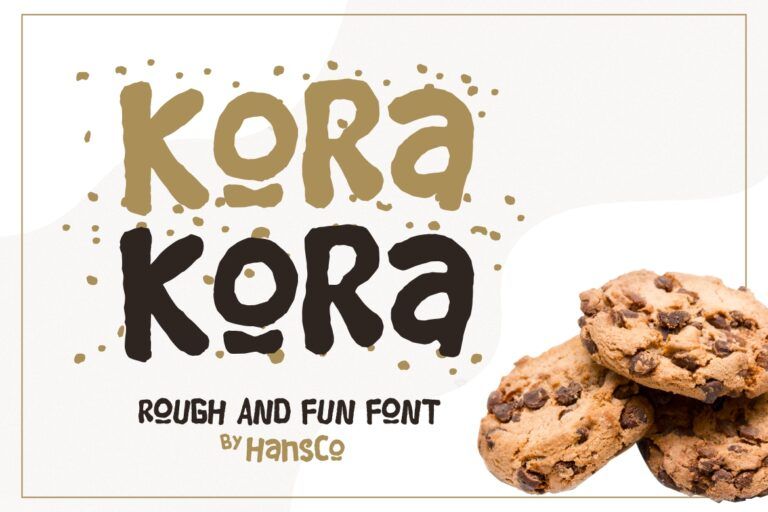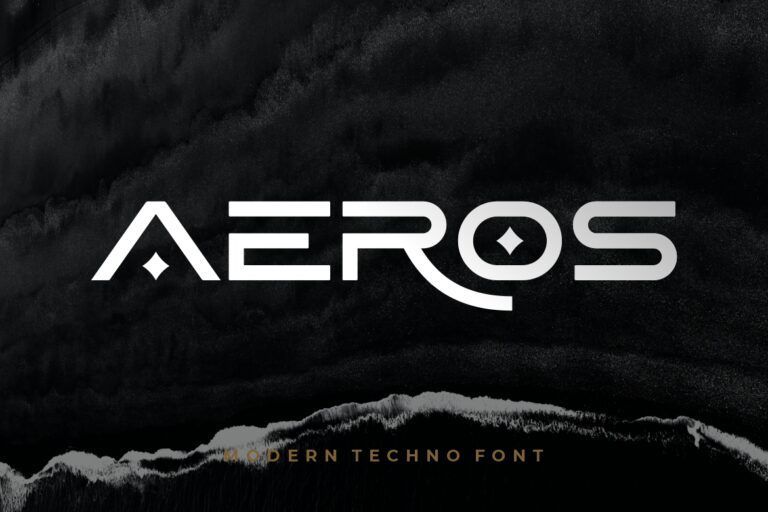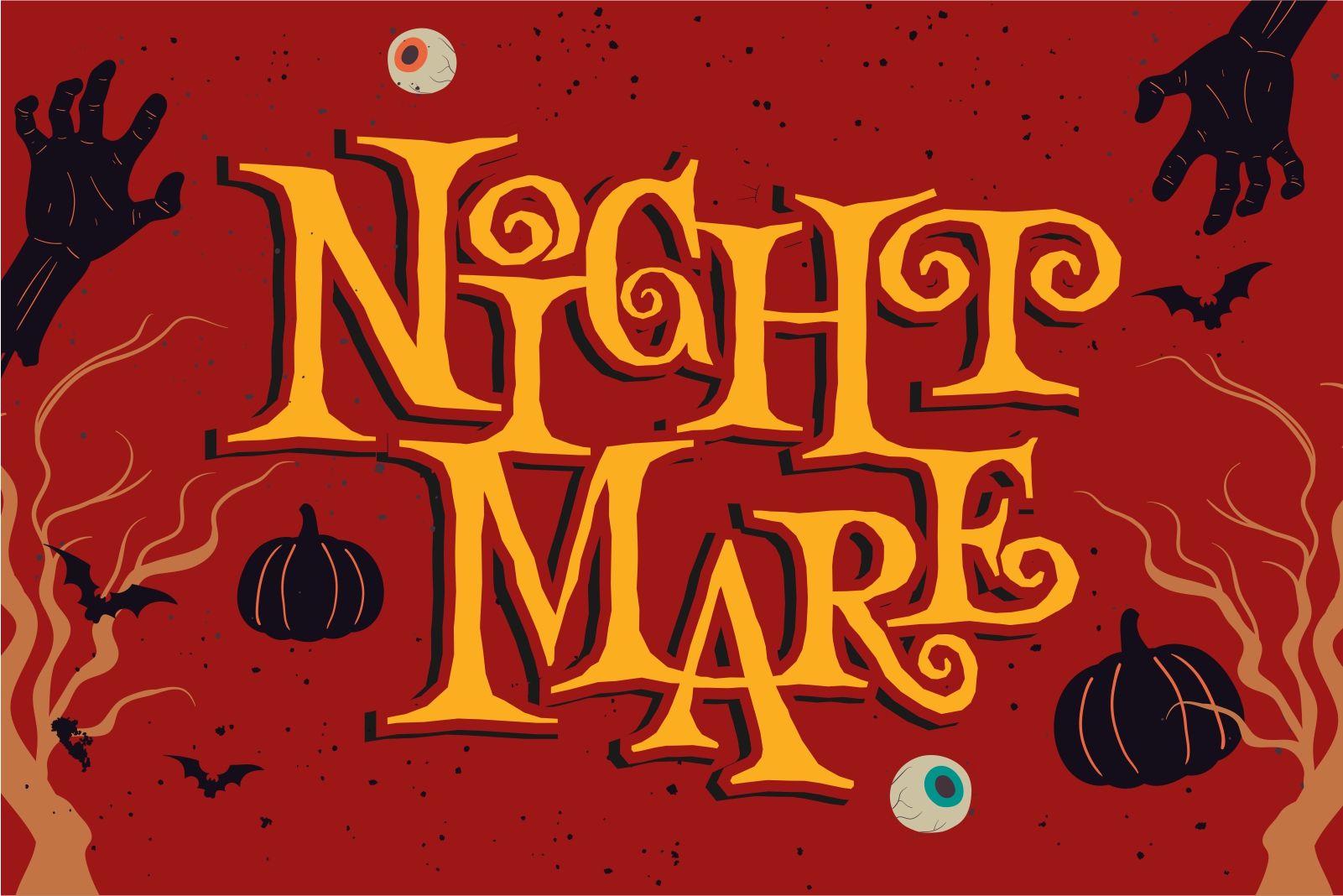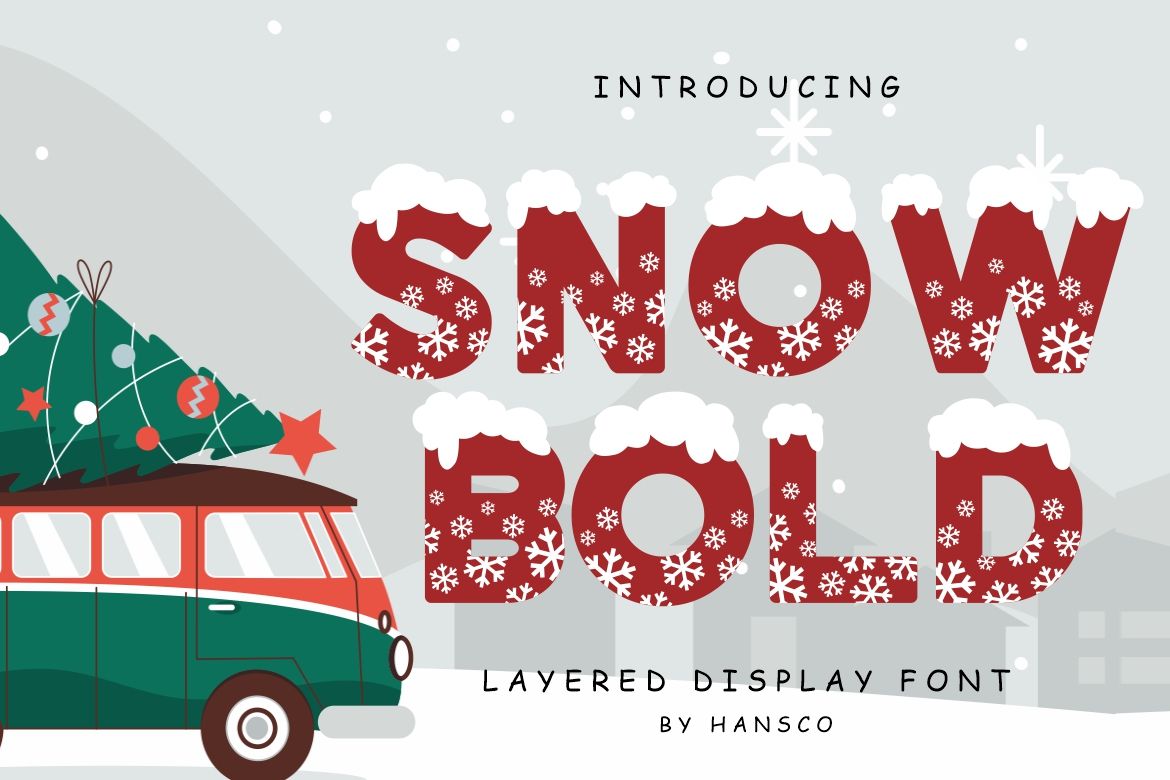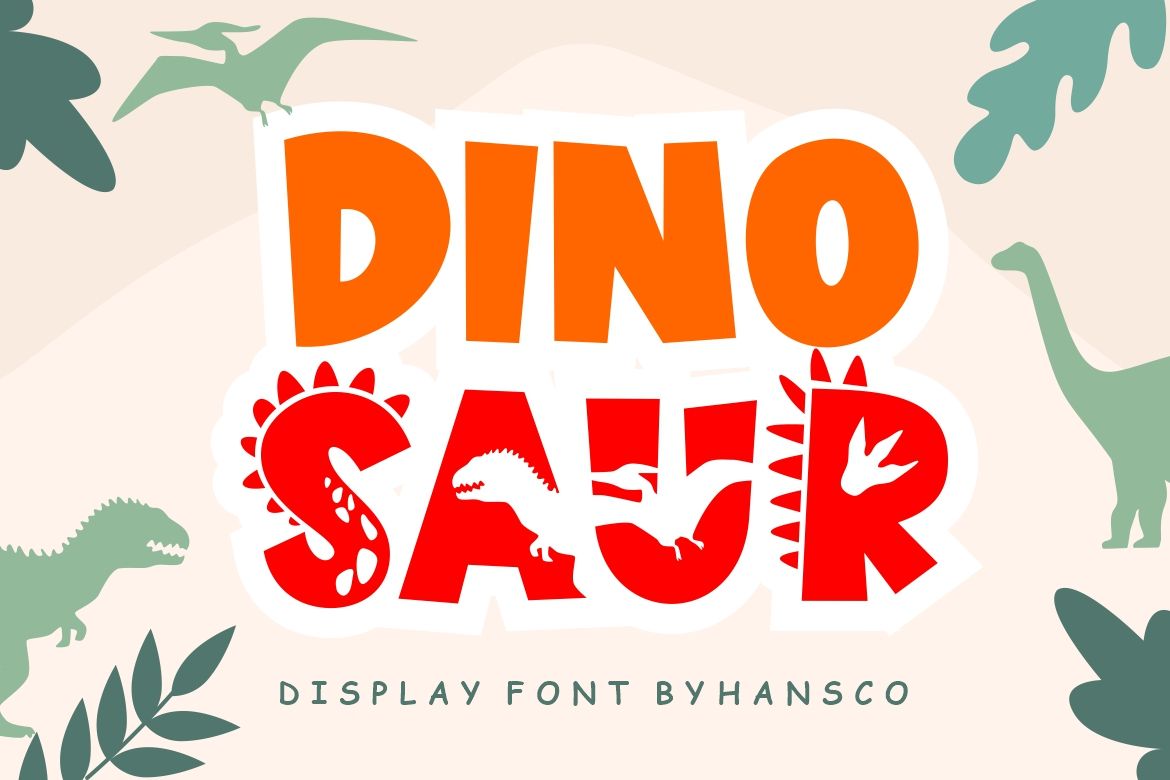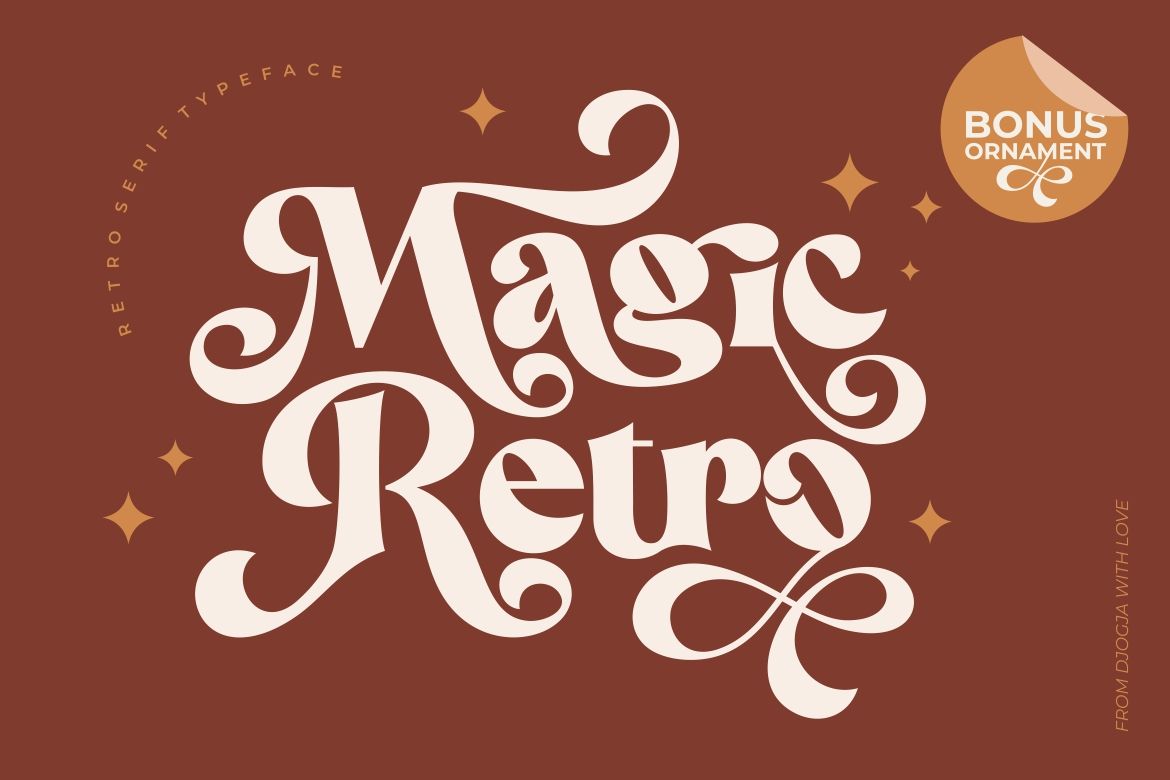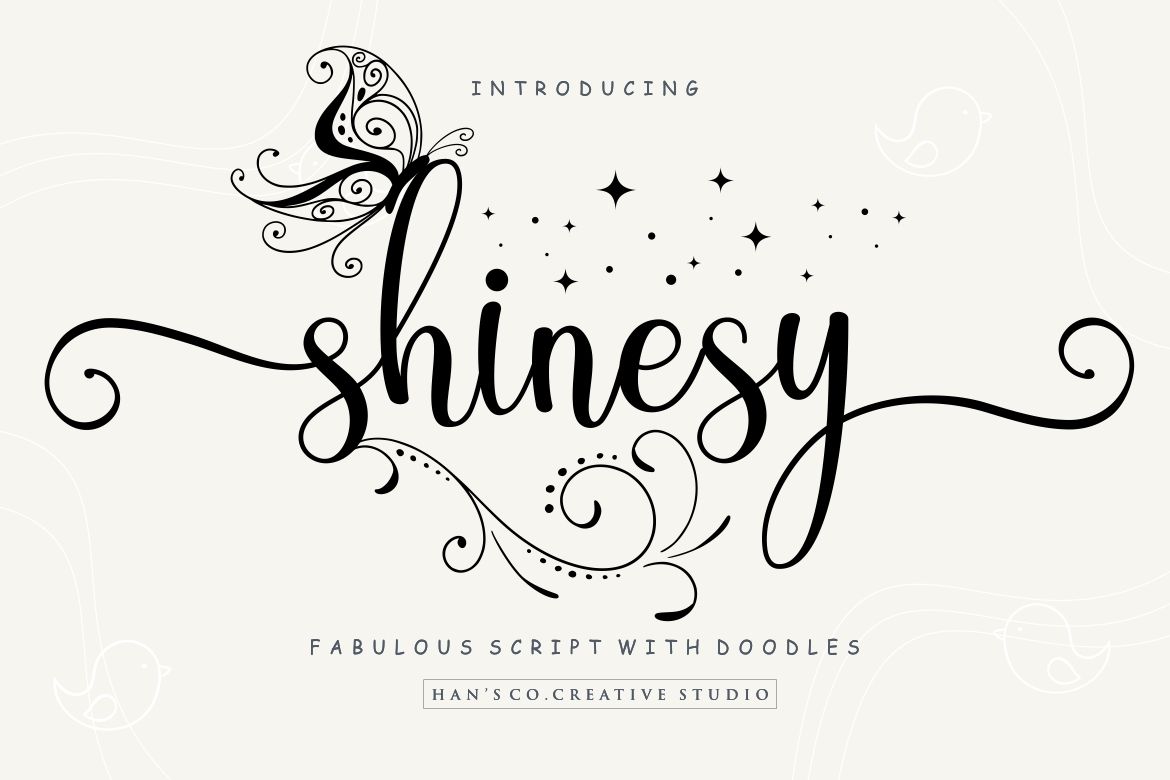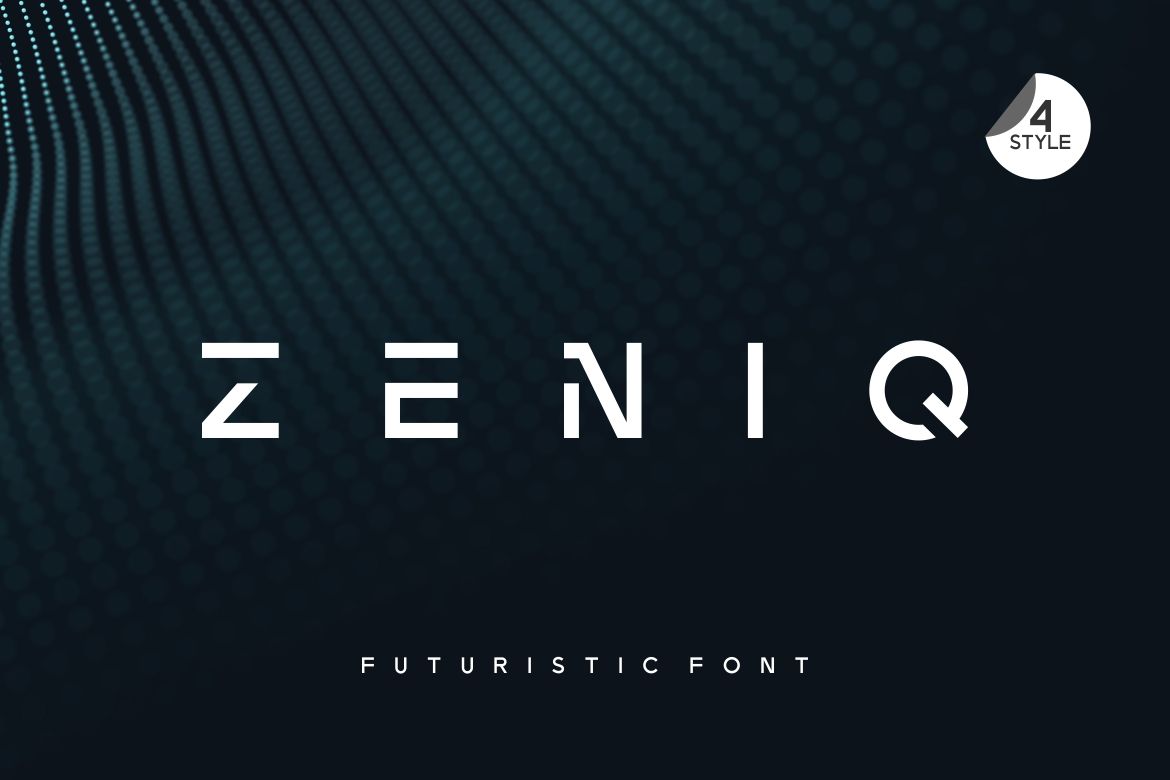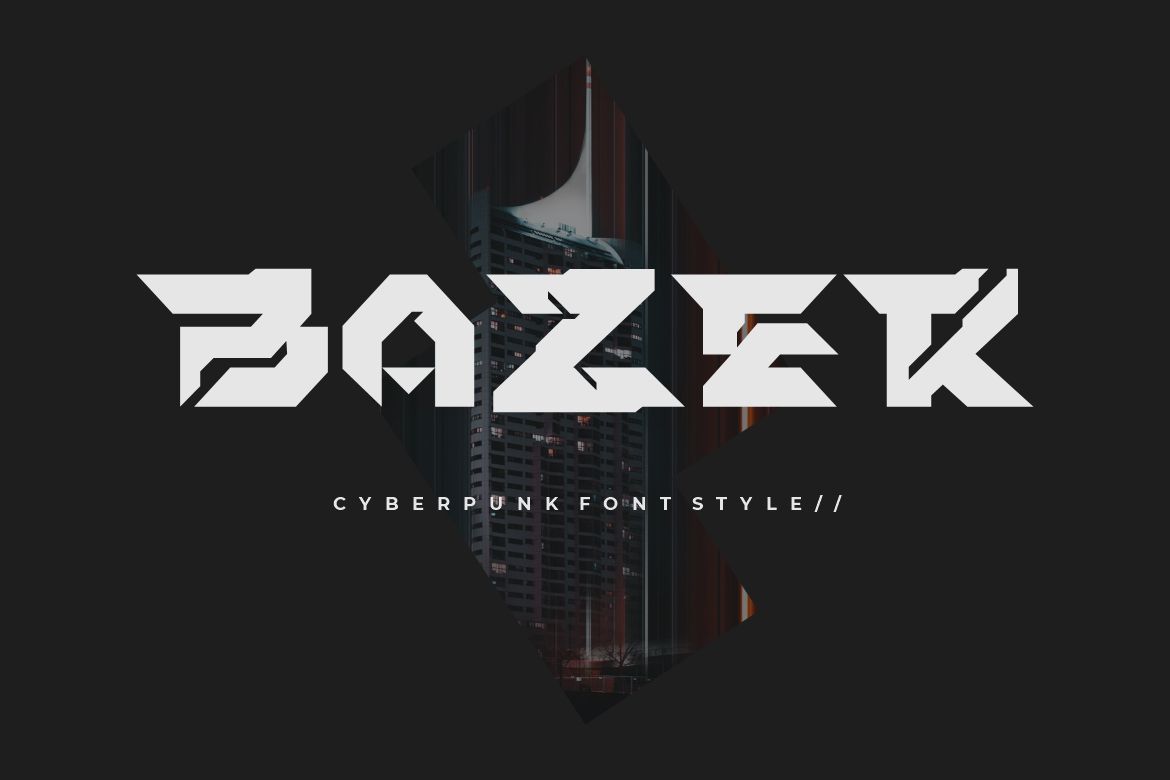
Font for Games Explained: Tips and Best Picks
As a game designer, you will definitely agree that fonts have important roles in determining the entire players’ experiences. Choosing the best font for games is therefore should be on your top priority while you are at it.
But, what exactly makes fonts ideal for game design? That’s a common question frequently asked by many starter designers. If you happen to have a similar hurdle, this article can be a beginning that will walk you to every step for mastering the skill.
How to Choose the Best Font for Games
Don’t let poor font choices negatively impact your game design. Consider the following aspects when you are choosing the ideal font for your gaming projects.
⦁ Align with Theme
Different fonts certainly have different impacts on game design. That’s why fonts need to be aligned with the entire atmosphere and theme to set the mood. If you are designing a children’s game, for example, a font with quirky shapes and playful display might be the best one.
It would be different when you are designing a sci-fi game. A geometric shape font with a sleek aesthetic mostly has a better impression on visual style.
⦁ Ensure Readability
Games with poor readability font tend to cause disengagement and decreasing enjoyment. They will likely abandon such games because it surely makes them bored.
So, to improve users’ experience, make sure you choose the best fonts that offer great readability even on a small screen. It will help users understand game instructions faster and easily navigate the game.
⦁ Choose Ideal Font Pairing
When it comes to ideal games font pairing, you need to balance the choice between visual aspects and readability. Don’t overuse fonts with excessive shapes and styles. Instead, try to combine bolder styles with legible and clear types to make a balanced visual.
⦁ Practical Consideration
Practical consideration means you have to select font for games with regard to size and localization. It involves making sure the fonts perfectly perform in different resolutions and distinct language localization.
⦁ Visual Hierarchy
Visual hierarchy is another crucial element in UI game design and font selection have a great influence within this element. Proper font selection can create an easy and understandable visual hierarchy, guiding the users to catch essential information practically.
Different Styles of Font for Games
Once you have comprehended all of the essential elements in games fonts, now let’s move to learn about the different styles of games fonts. Generally, there are 6 common styles that are frequently applied in game design. Here’s the complete explanation about each style.
⦁ Serif
Serifs have a distinct characteristic of small tails at the end of each letter. The tails or strokes make serif fonts typically have a formal yet elegant appearance. As for game design, serif can enhance readability that suits both the body and headings section.
⦁ Sans Serif
Sans serif has the opposite characteristic of serif fonts, meaning it doesn’t have tails or strokes at the end of letters.
They convey a straight and clean impression which makes them visually simple and friendly for game design. They are also best for titles, short phrases, and screens.
⦁ Display
Display is a font for games that have totally different personalities from serif and sans serif. It’s initially designed to create an impression and attention with its bold and stand out characteristics.
When you are using a display font in a game design, you would have eye-catching and expressive presentations. But, the too-stylized look sometimes makes display fonts less suitable for small texts. They will be great when used for game logos or titles.
⦁ Script
Scripts often mimic the look of calligraphy and handwriting. They have different types of styles, ranging from formal, casual, brush, and modern. Each type conveys a different feeling and atmosphere, so it’s suggested to align the choice with your gaming purposes.
⦁ Decorative
Decorative fonts have bold and thematic styles that suit to evoke special effects in your game design. They can be paired elegantly with serif or sans serif to give a balanced impact to the visual.
⦁ Monospaced
Monospaced fonts are easily recognized as they have the same width letters’ characteristic.
The styles often look mechanical and clean, so it’s technically suitable for minimal or retro game design. Consider using this font style for titles or headlines, rather than long-form instructions.